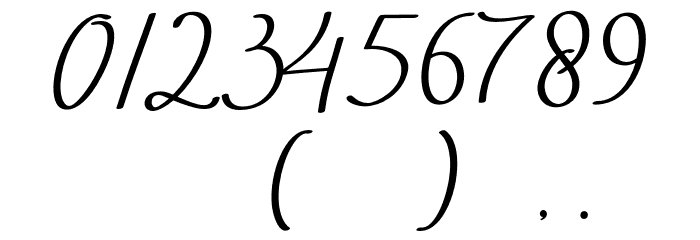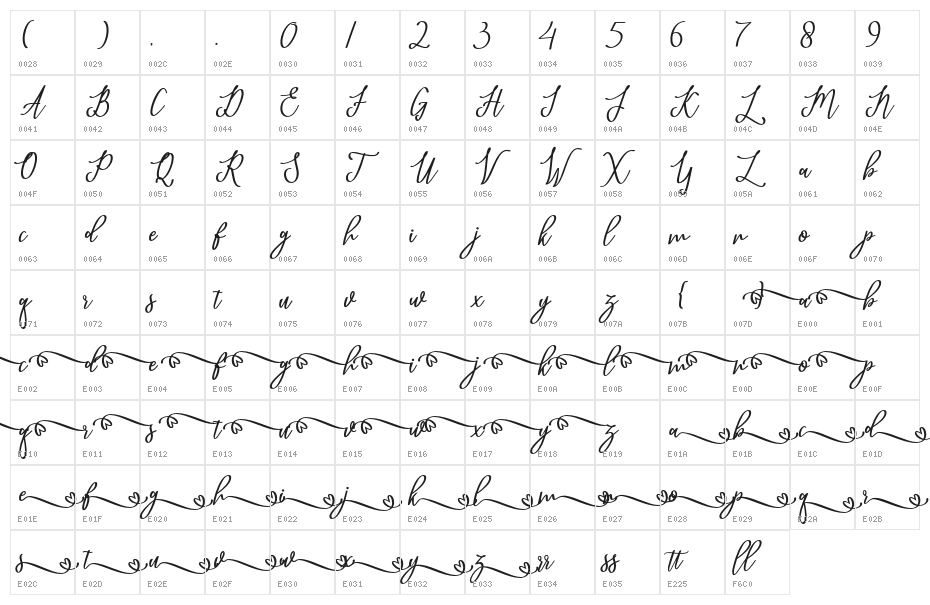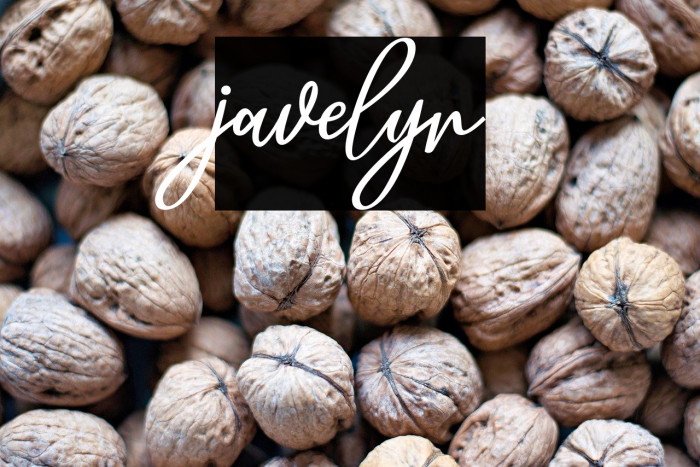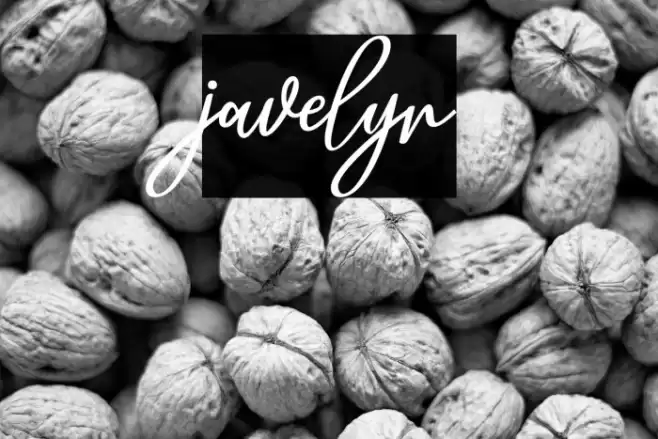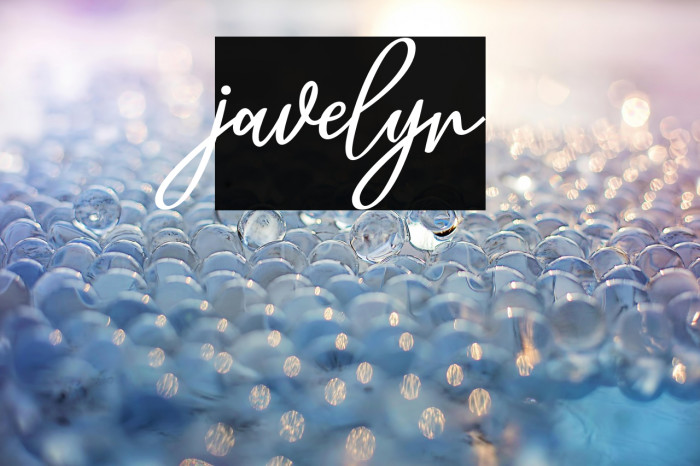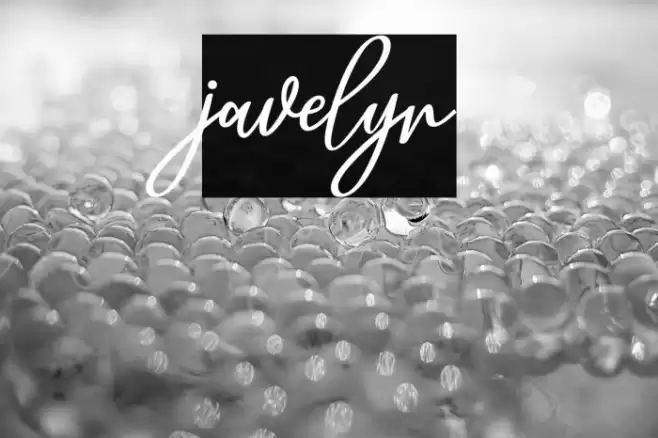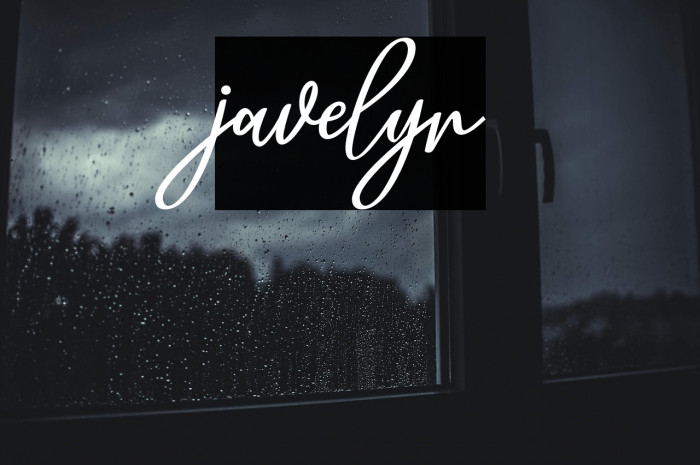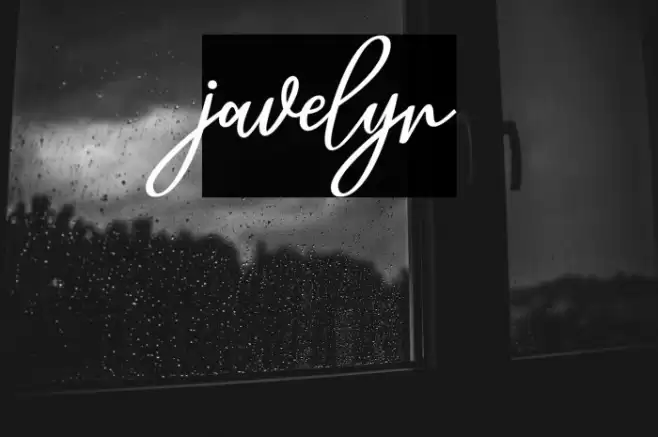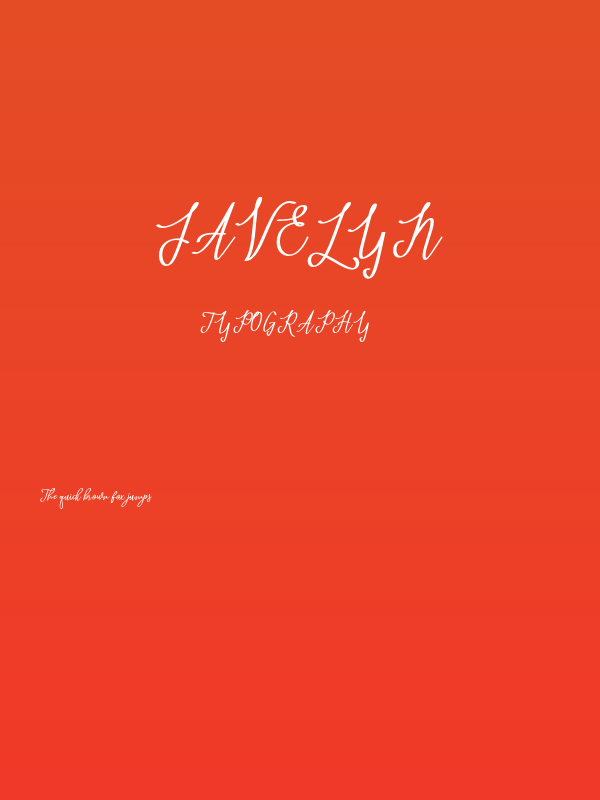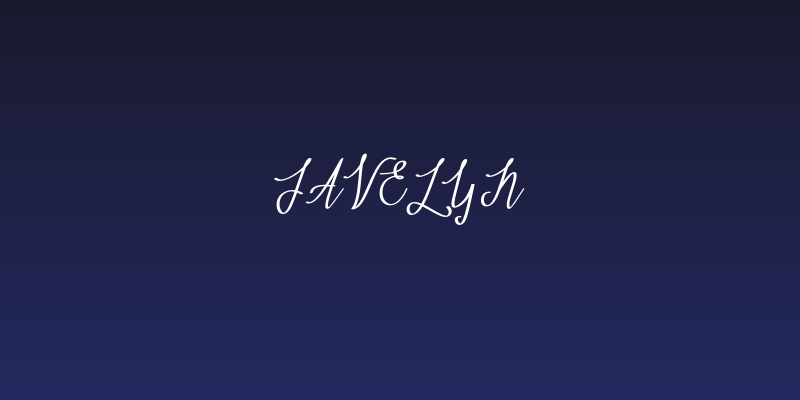
javelyn Font
javelyn Description
This elegant script font features flowing, cursive letters that exude a sense of sophistication and grace. The uppercase letters are slightly more ornate, with sweeping lines and subtle flourishes, while the lowercase letters maintain a consistent, fluid motion that enhances readability. The numerals are designed to match the script style, with gentle curves and a harmonious flow. The special characters, including punctuation marks, are seamlessly integrated into the overall design, ensuring a cohesive look. This font is perfect for projects that require a touch of elegance and style, such as wedding invitations, branding, and high-end product packaging.